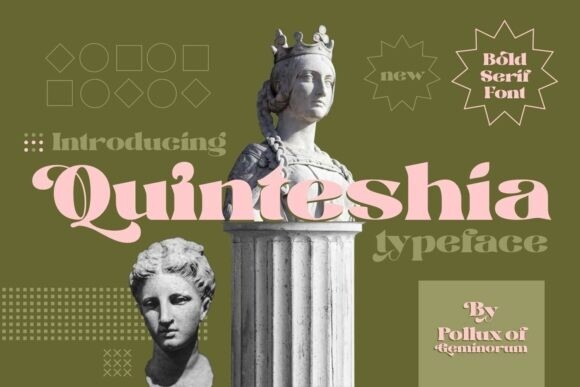
Quinteshia Font
Designer: Pollux of Geminorum
Quinteshia Font is a bold serif font with a unique, bold font style. It’s perfect for poster design, invitation, modern or retro-themed design. It is also suitable for layout magazines and logos for your business. This package has alternatives, so you can have more options when working on your designs.